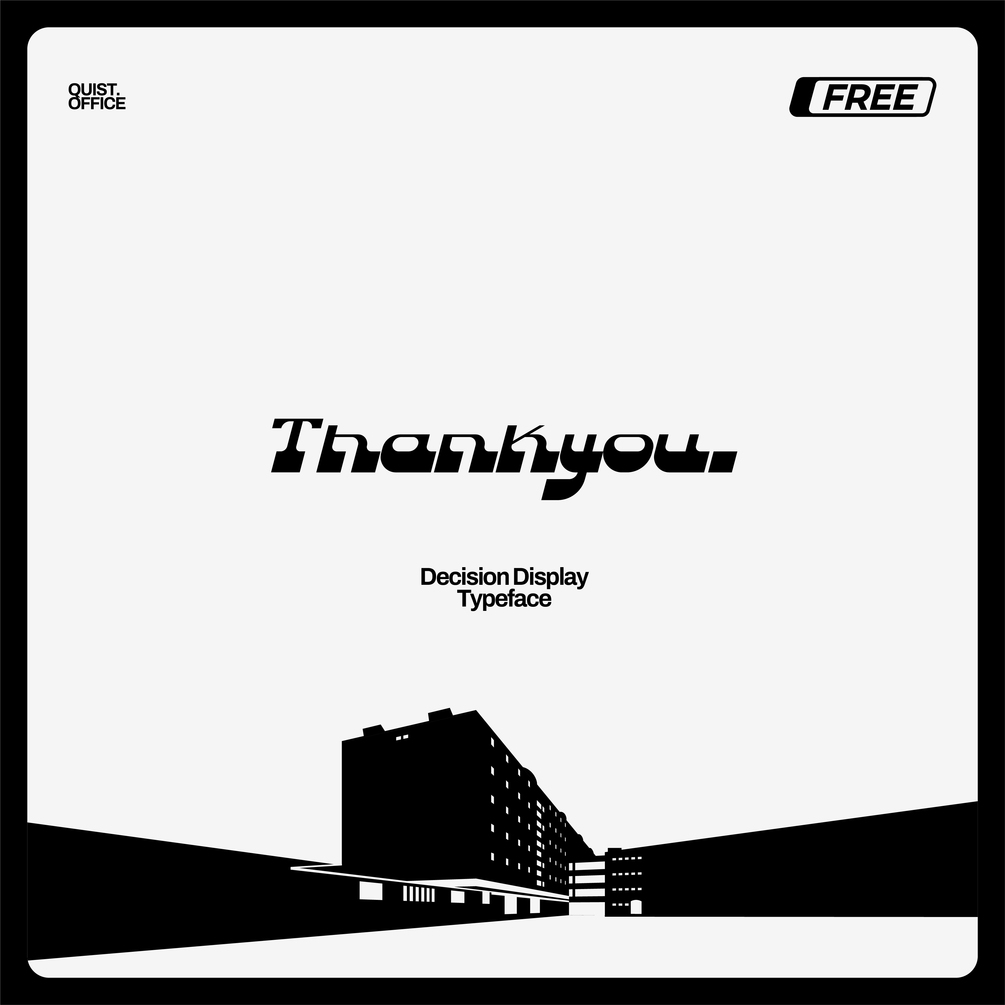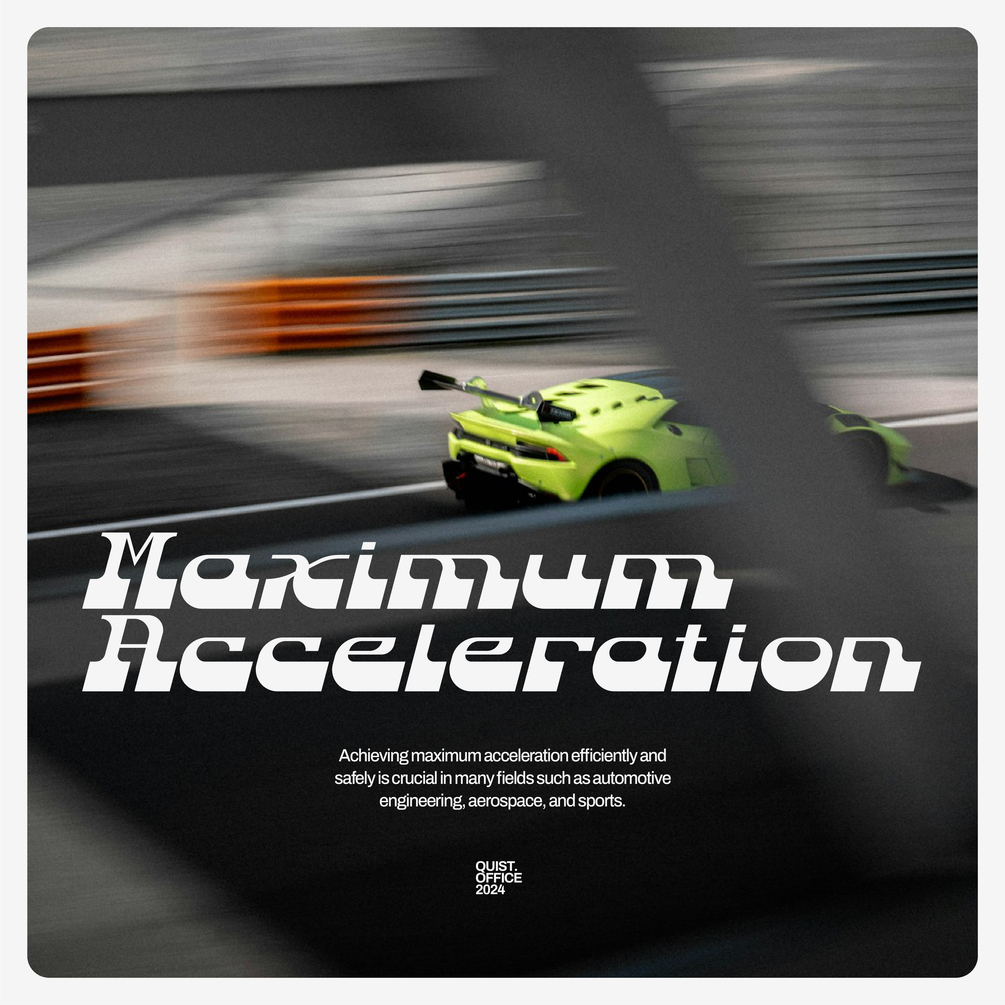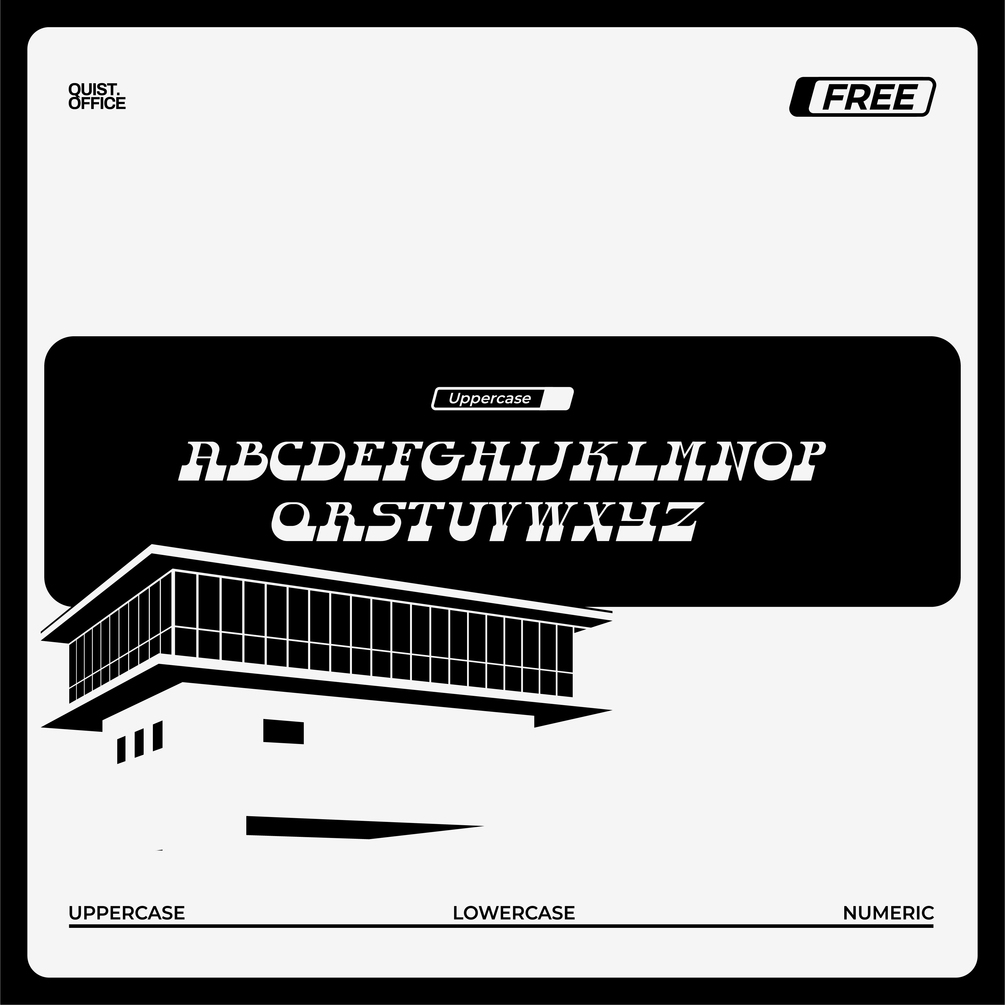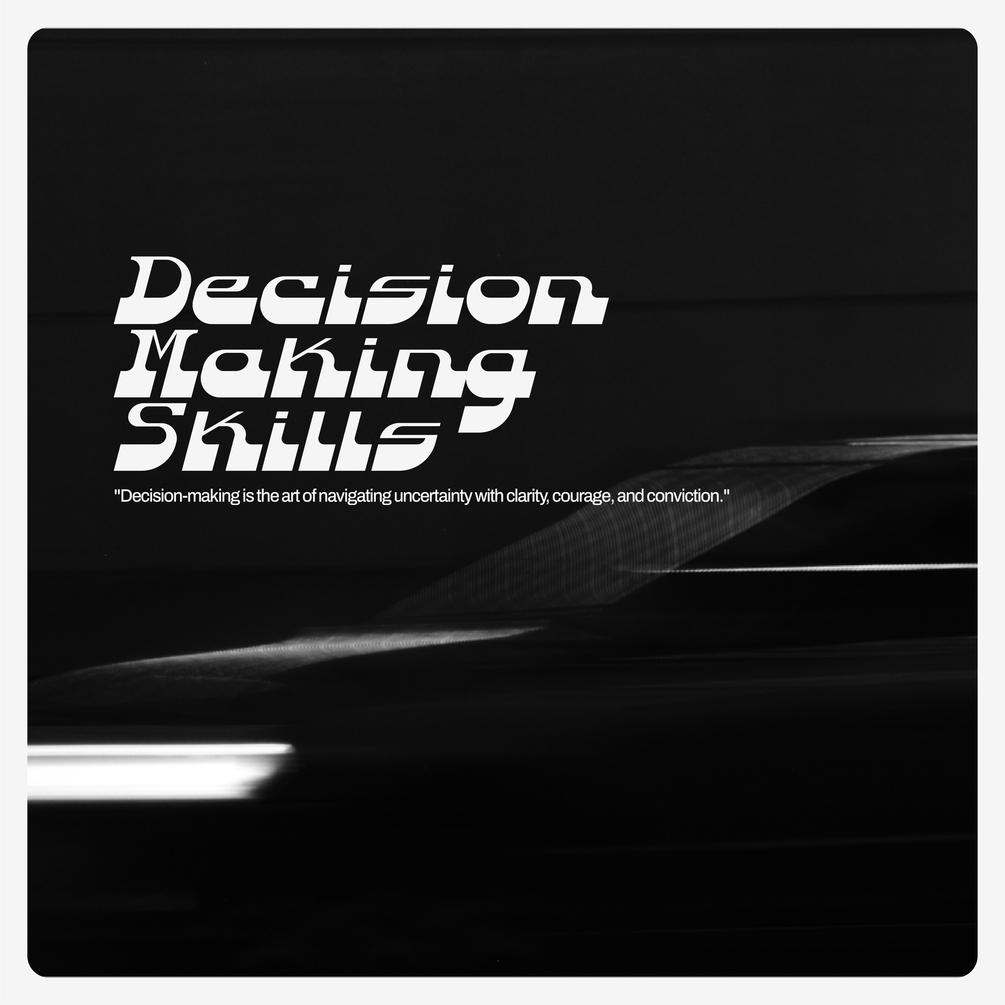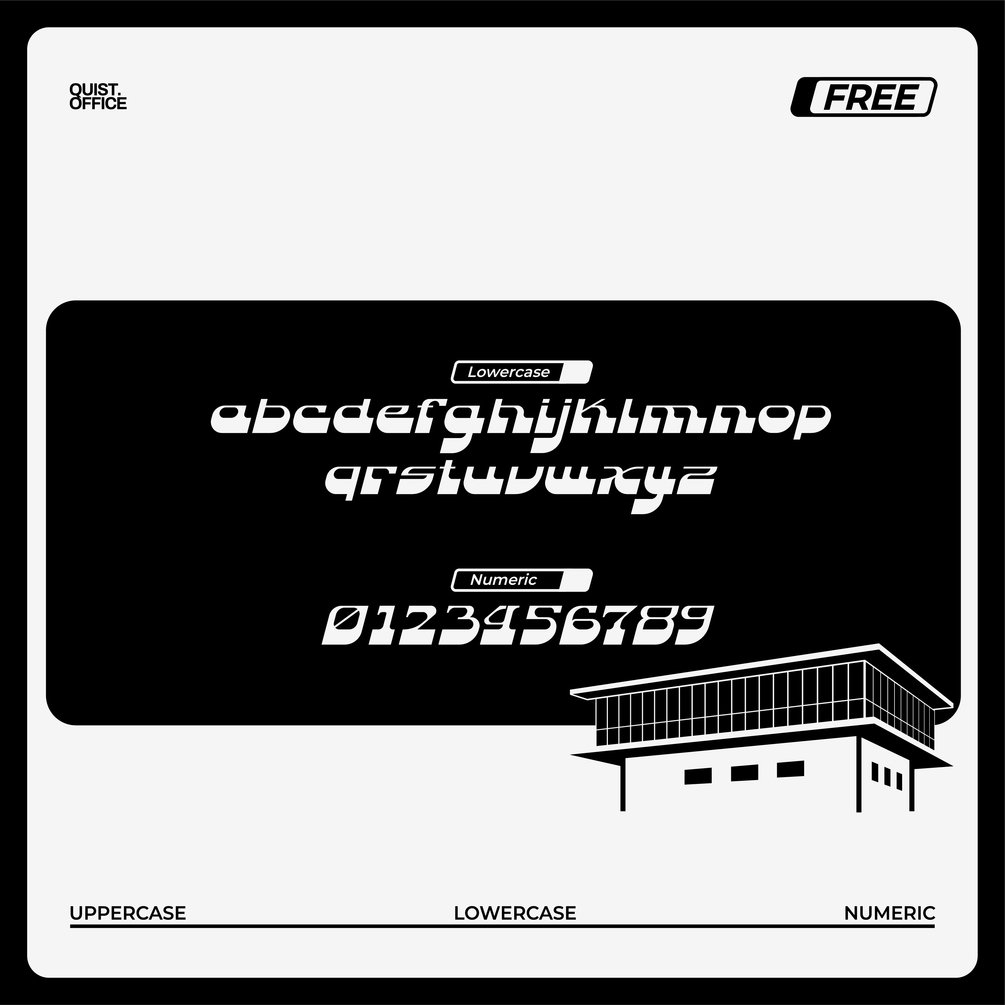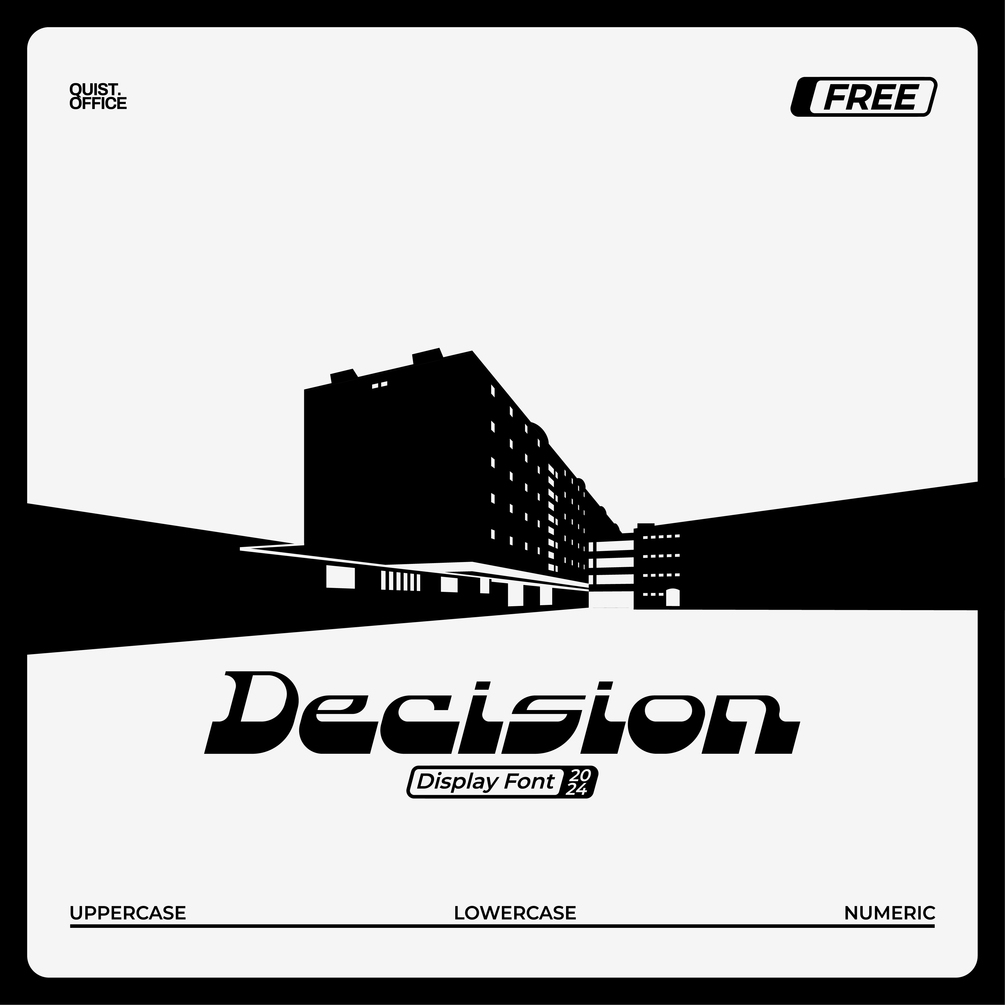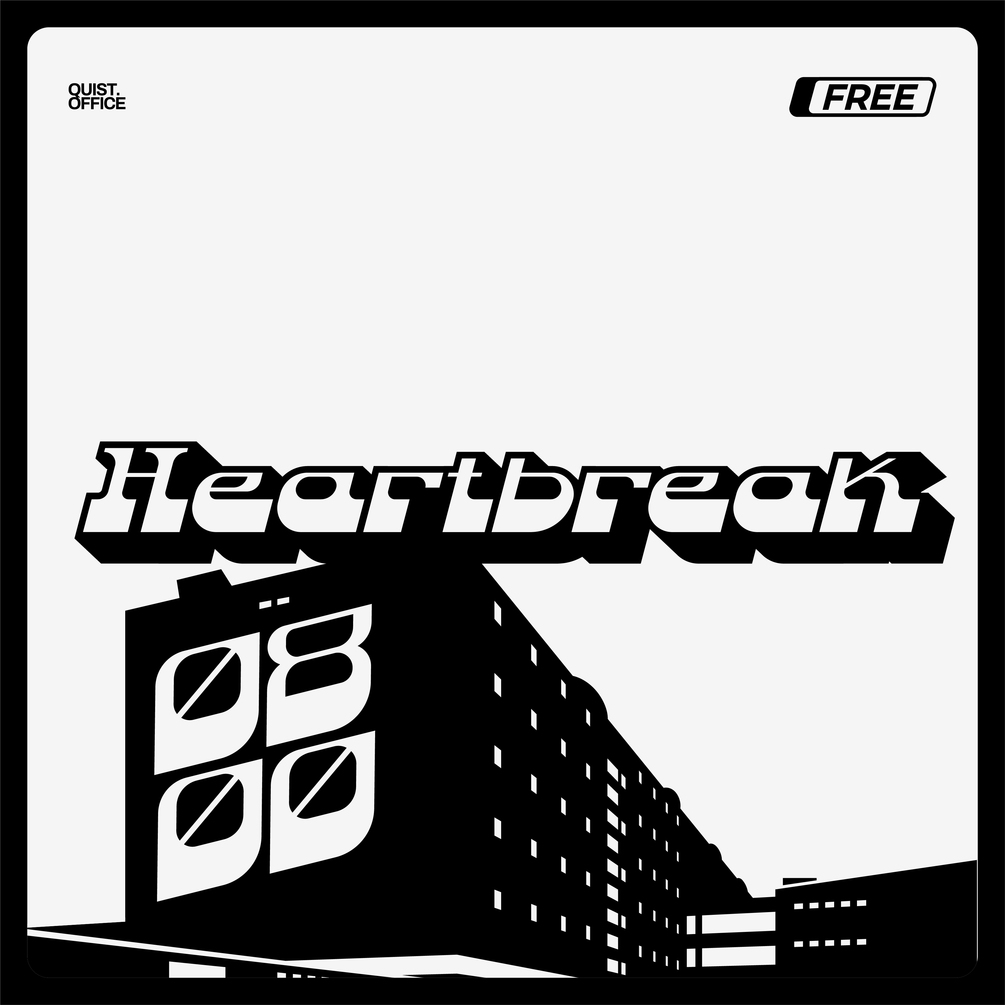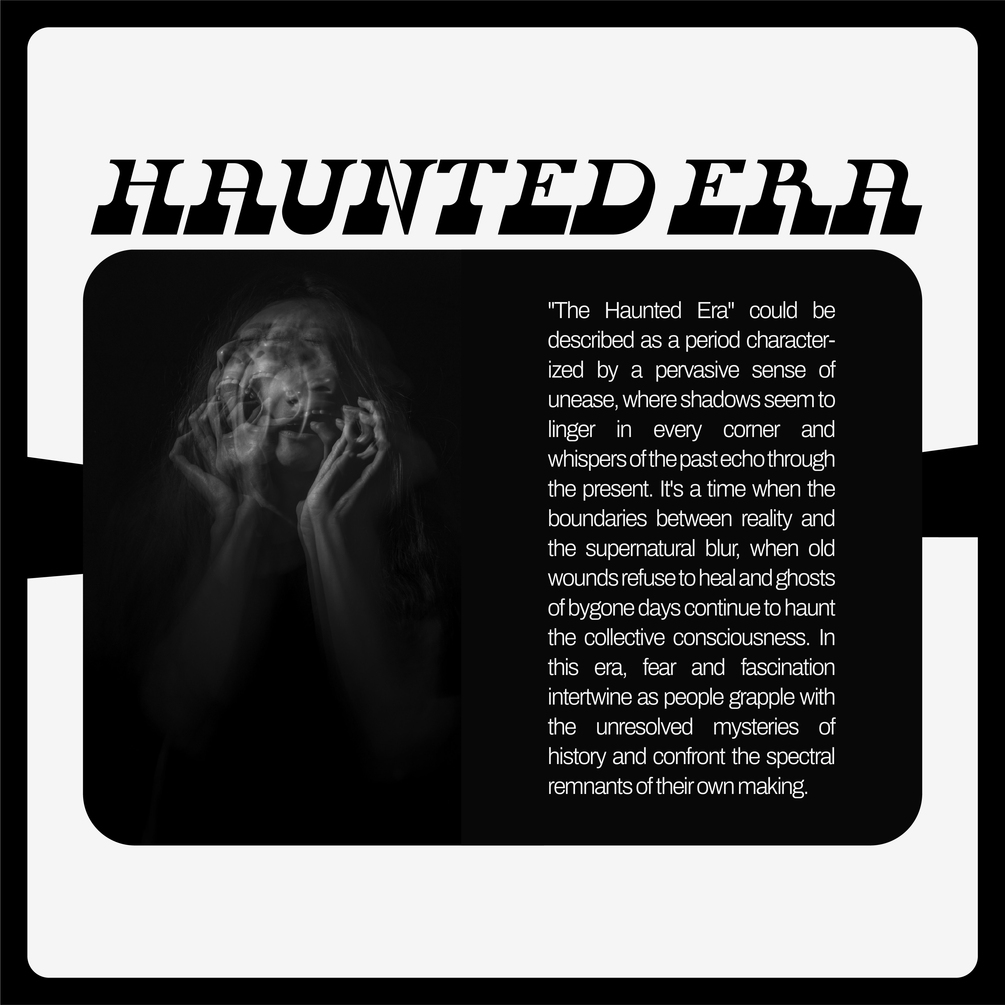
Decision - Display Font
"Decision" is a font designed by Quist Office
Inspired by the modern bold theme with italic touch keeping the simplicity
and unique shapes, great for use in your projects related to gaming,
future tech, space travel, virtual reality & much more!